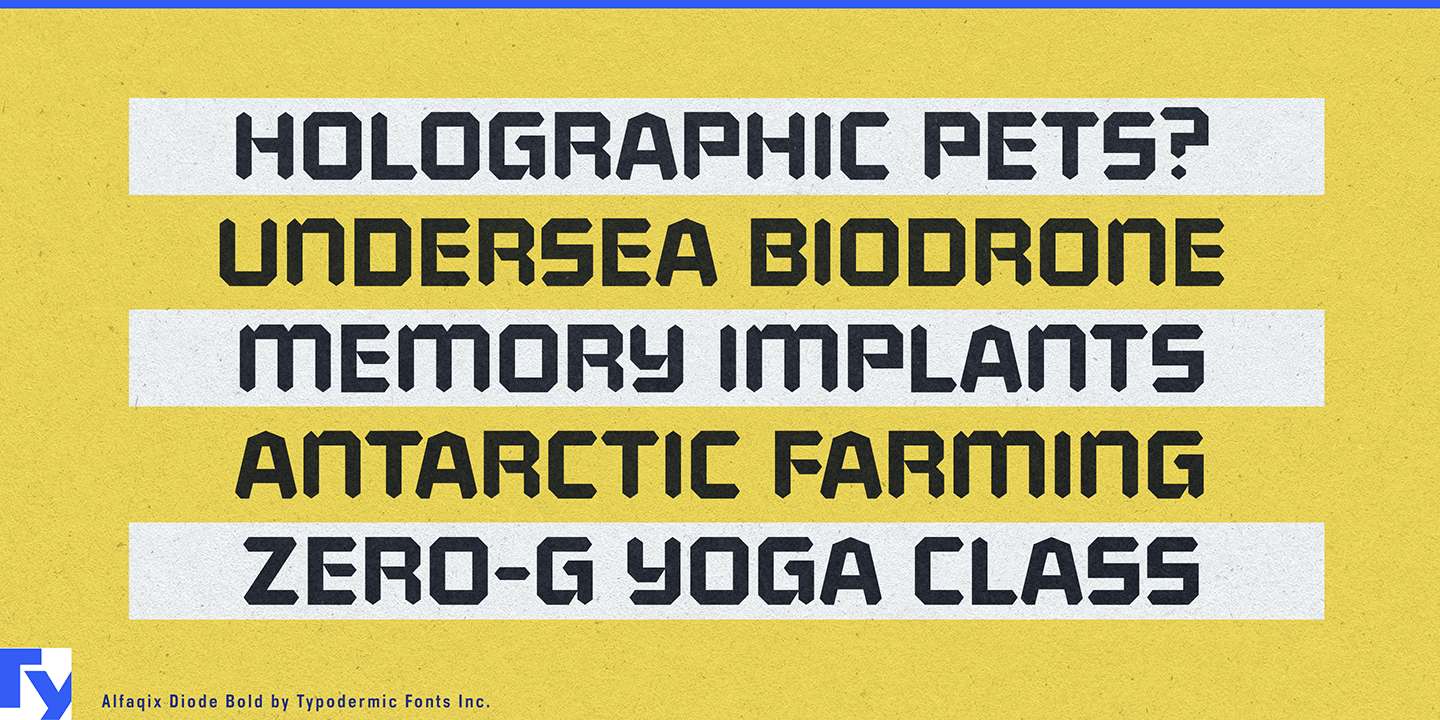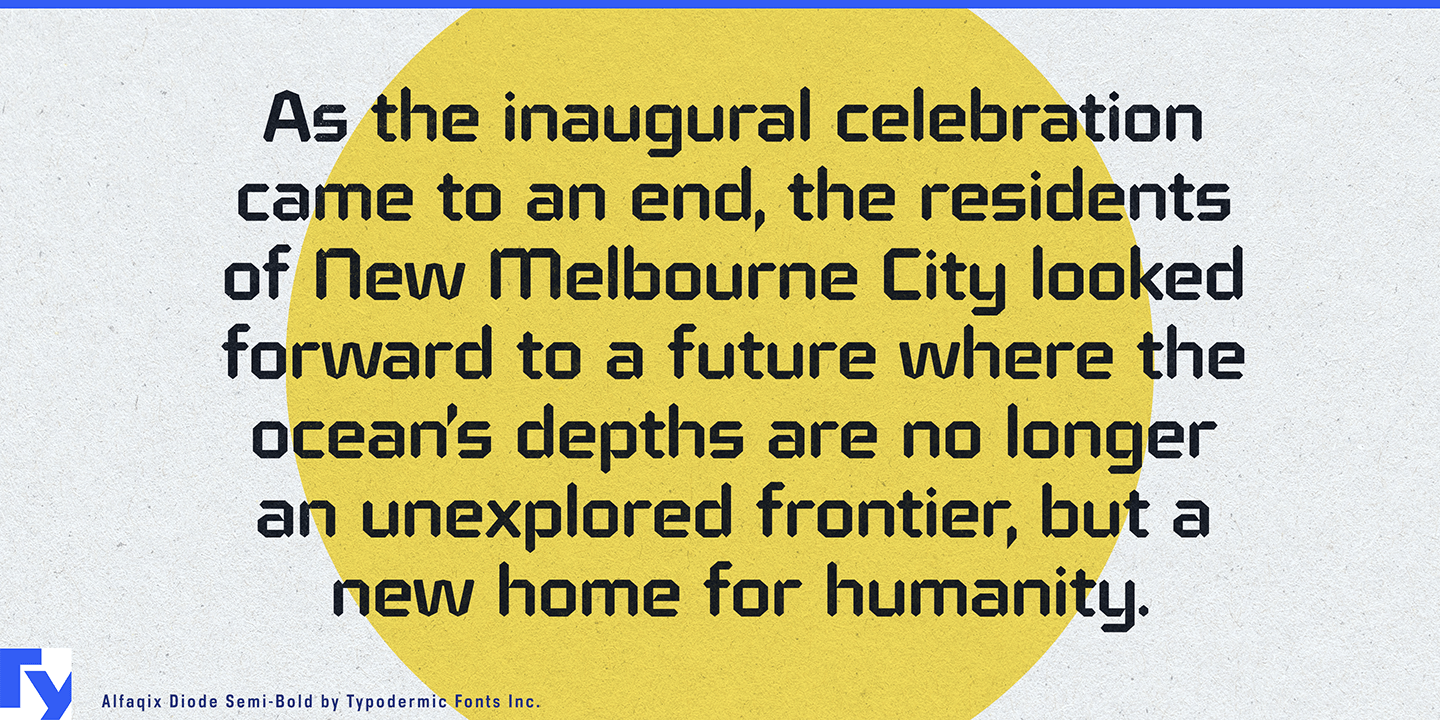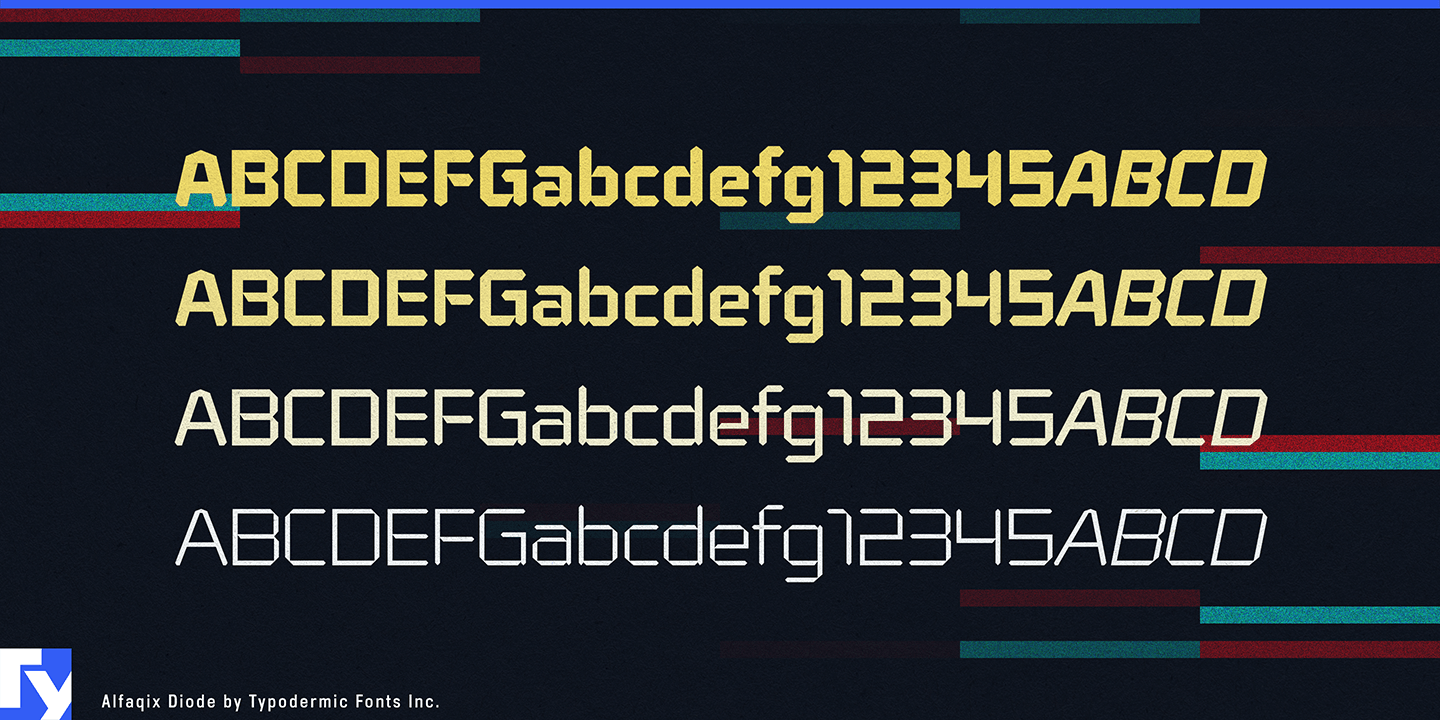
About Alfaqix Diode
Illuminate your designs with Alfaqix Diode, Typodermic Fonts’ cutting-edge typeface that bridges today’s digital landscape with tomorrow’s technological horizons. This innovative font family channels the essence of segmented LCD displays,…